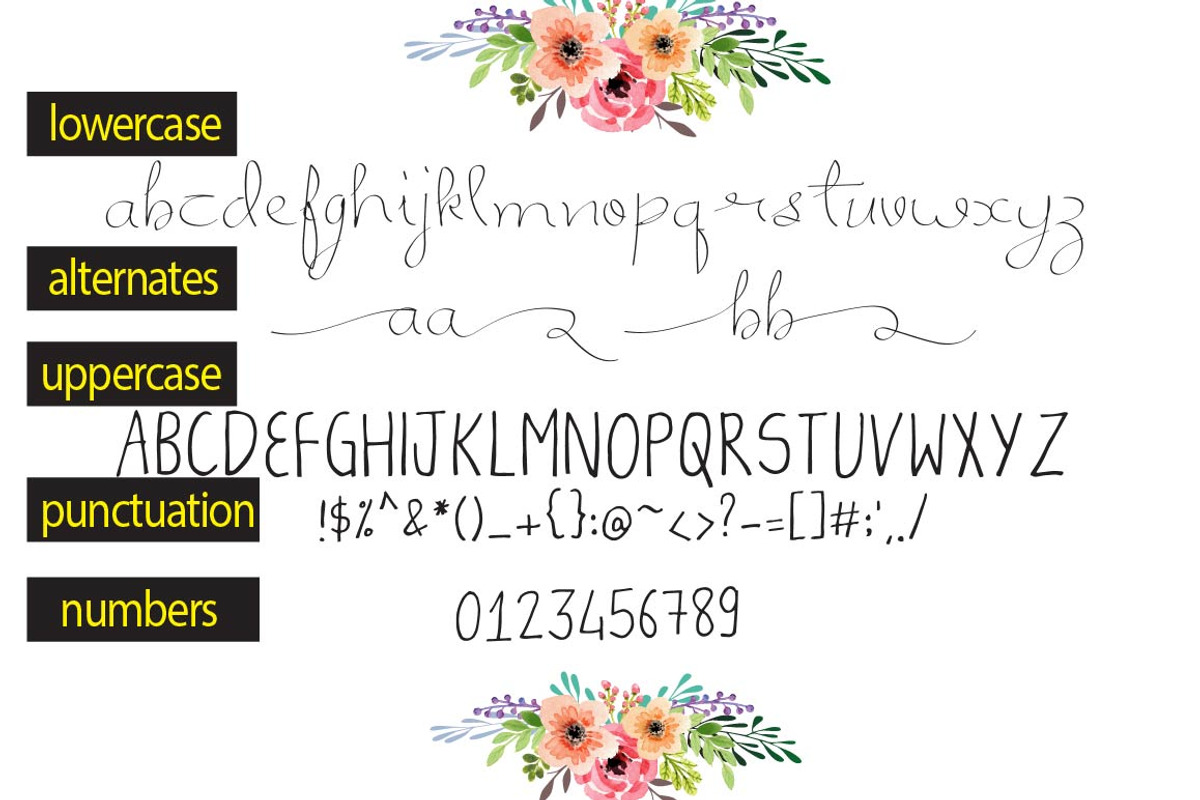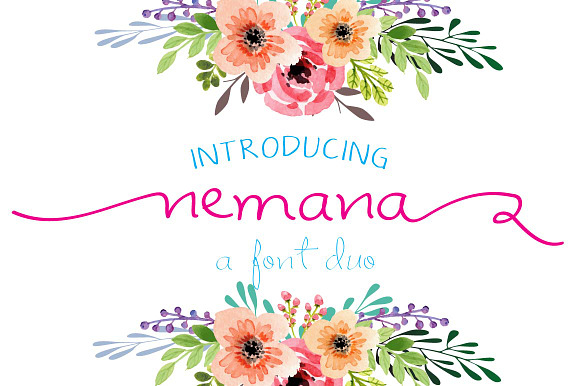
Nemana Font
Nemana is a modern script font, every single letters have been carefully crafted to make your text looks beautiful. With modern script style this font will perfect for many different project ex: quotes, blog header, poster, wedding, branding, logo, fashion, apparel, letter, invitation, stationery, etc.
Why Nemana Font is worth a look
Nemana Font by Zmapist fits naturally into Branding, posters, packaging, typography.